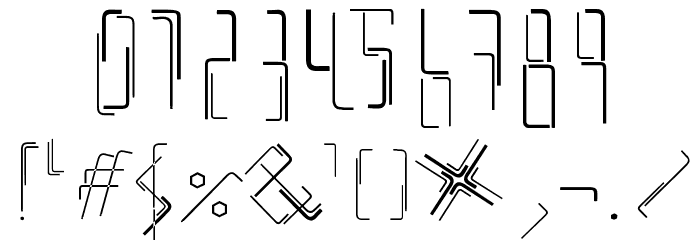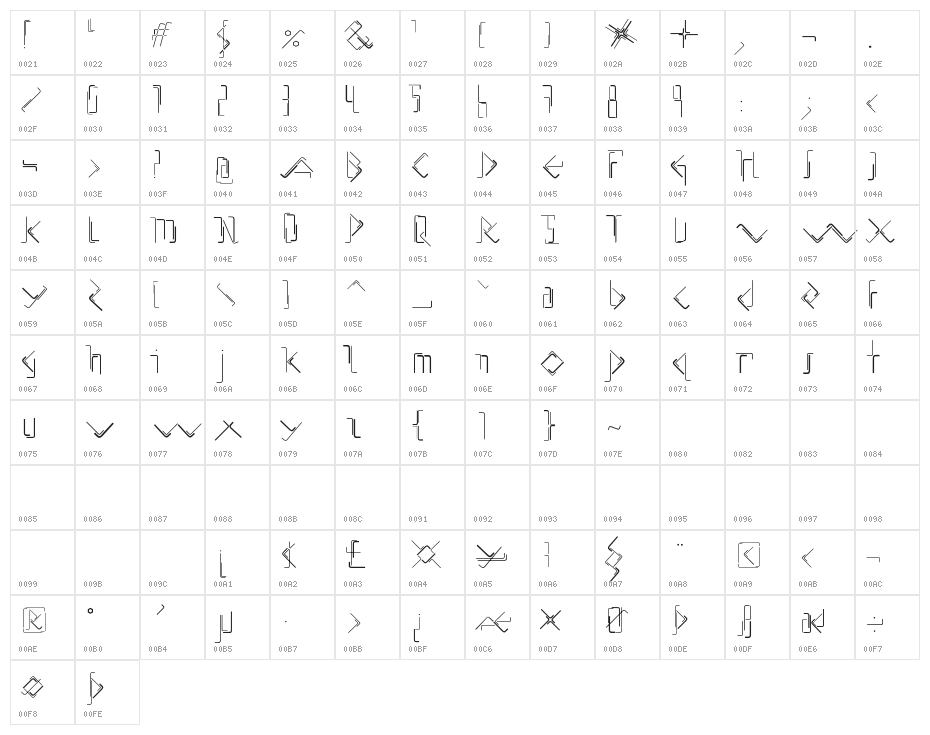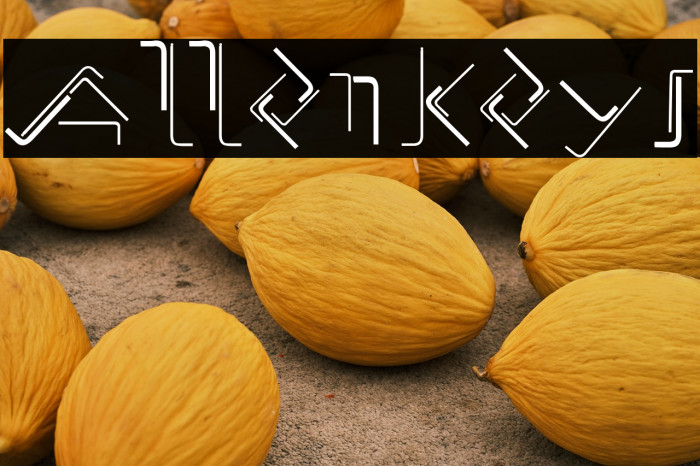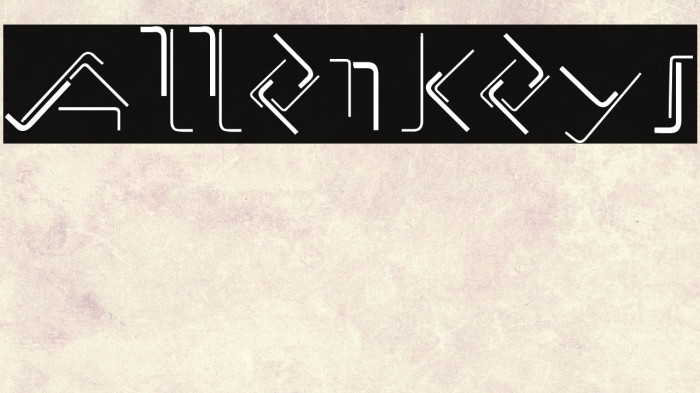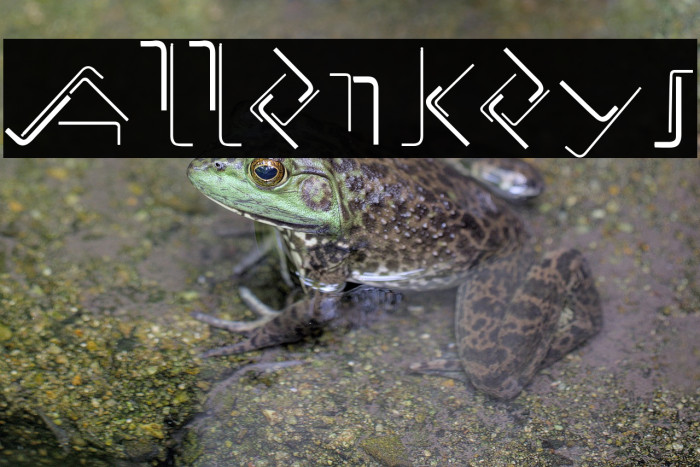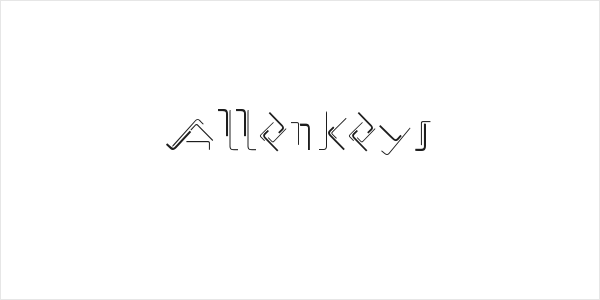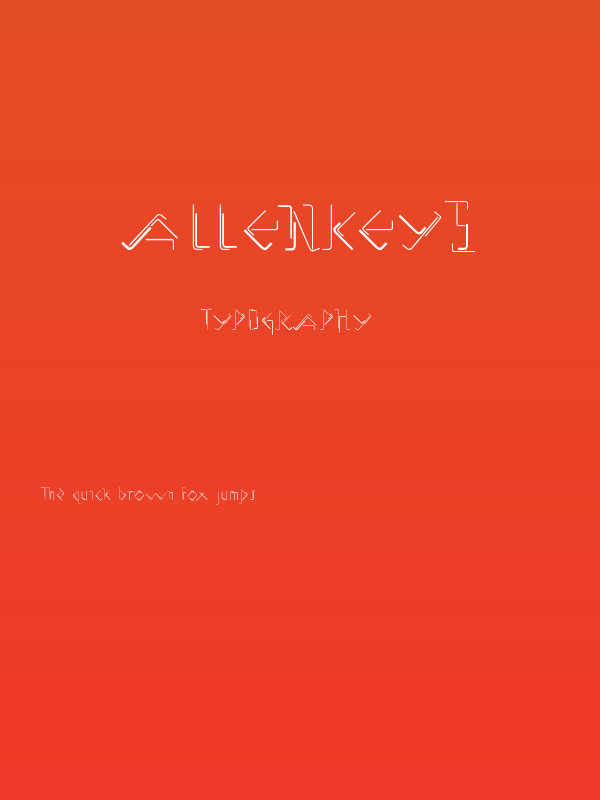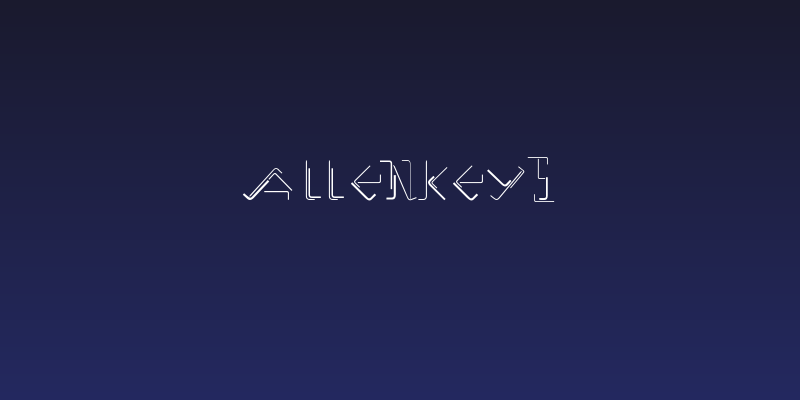
AllenKeys Font
AllenKeys Description
This font features a futuristic and angular design, characterized by sharp edges and geometric shapes. The letters are constructed with a combination of straight lines and acute angles, giving it a distinct, modern appearance. The uppercase and lowercase letters maintain a consistent style, with a unique approach to each character that emphasizes a sense of movement and direction. The numbers and special characters follow the same design principles, ensuring a cohesive look throughout. This font's innovative style makes it stand out, ideal for projects that require a bold and contemporary aesthetic.
| Proposed Projects | Ideal for sci-fi themed designs, tech branding, modern posters, and digital interfaces. |